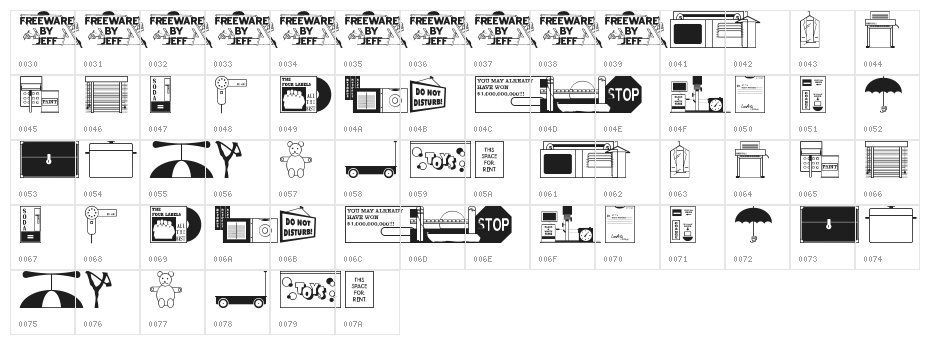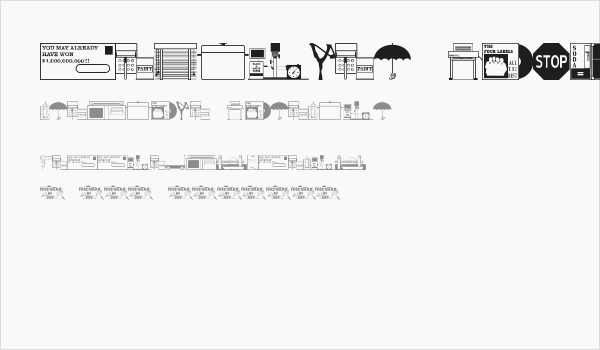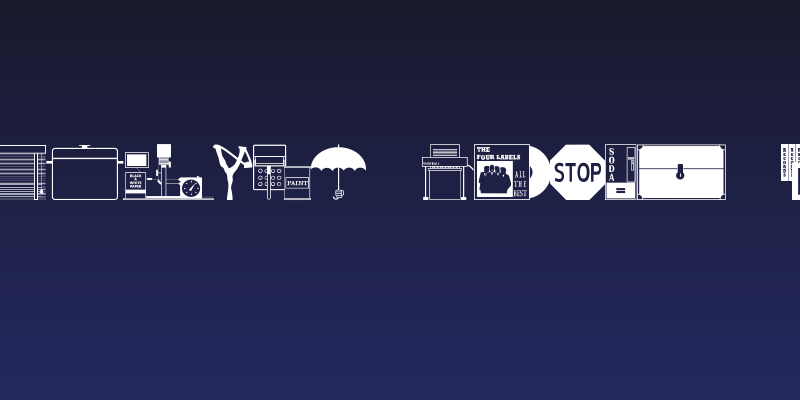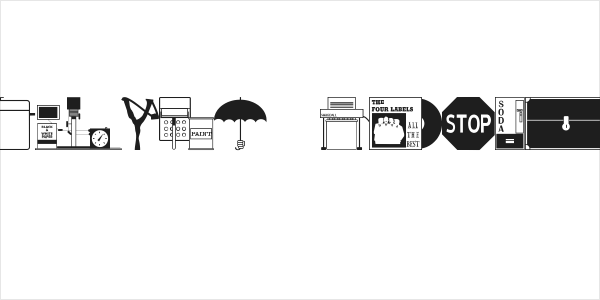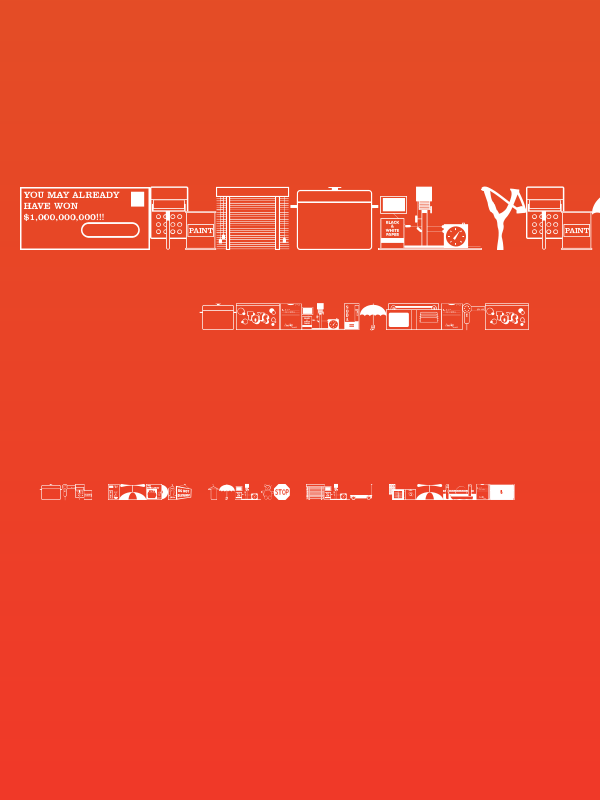
Leftover Dings JL Font
Leftover Dings JL Description
This is a decorative dingbat font featuring a variety of whimsical and everyday objects. The characters include items like stop signs, clocks, umbrellas, briefcases, and teddy bears, each rendered in a simple, bold style. The font is designed to add a playful and quirky touch to projects, with each symbol offering a unique visual element. The consistent line weight and clear outlines make the symbols easily recognizable, while the variety of objects provides a broad range of creative possibilities.
| Proposed Projects | Ideal for creative projects such as scrapbooking, greeting cards, posters, and educational materials where a fun and quirky visual element is desired. |